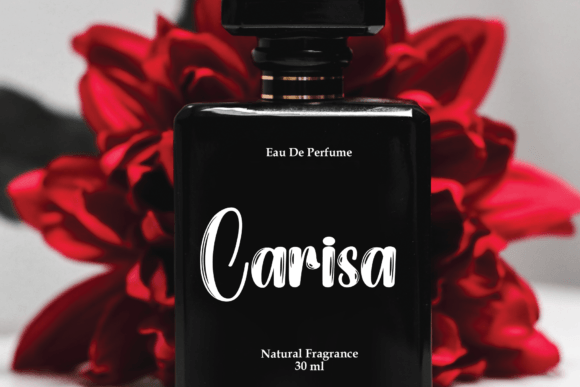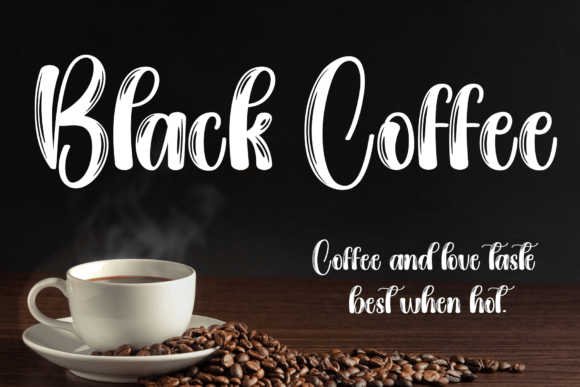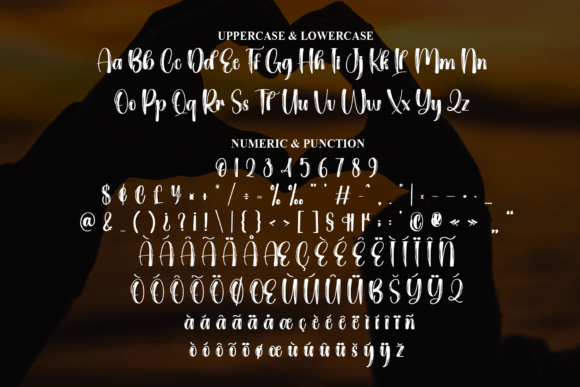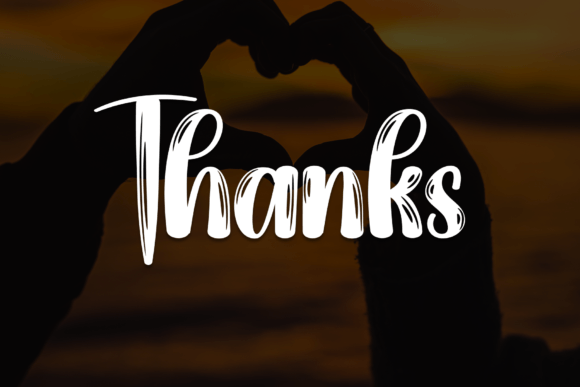
Lovely Font
Lovely is a charming handwritten brush font that radiates a cozy and inviting vibe. With its playful yet elegant strokes, it brings a touch of warmth to any design project. Whether used for greeting cards, invitations, or branding materials, this font adds a delightful and personal flair to your creations.